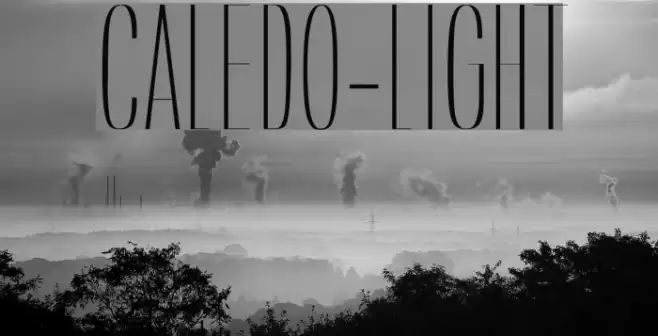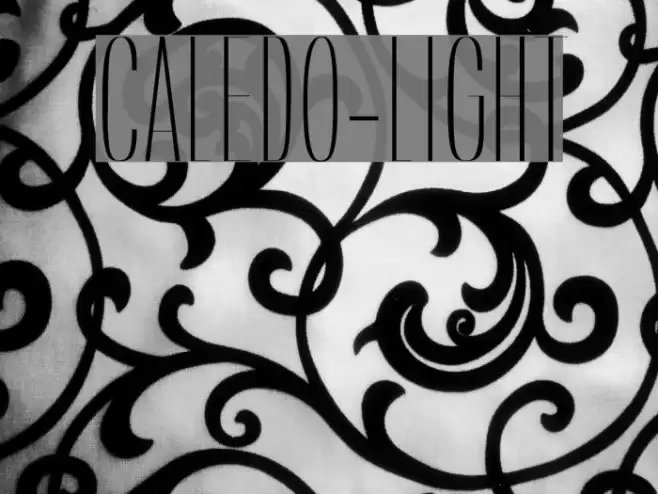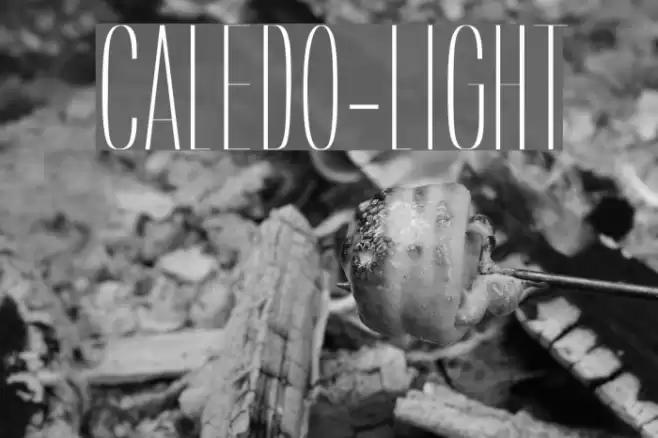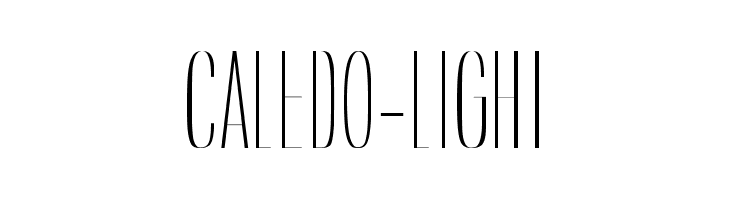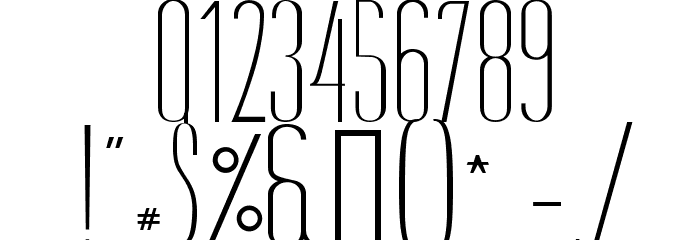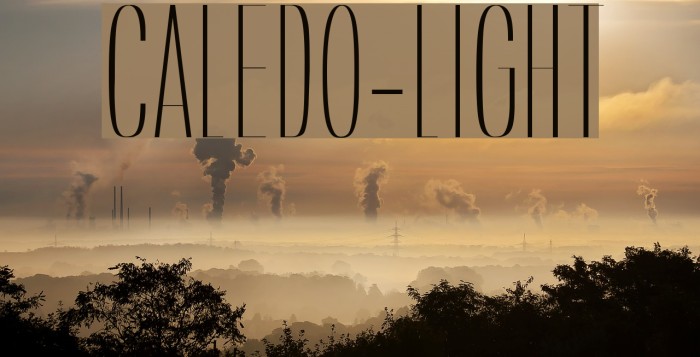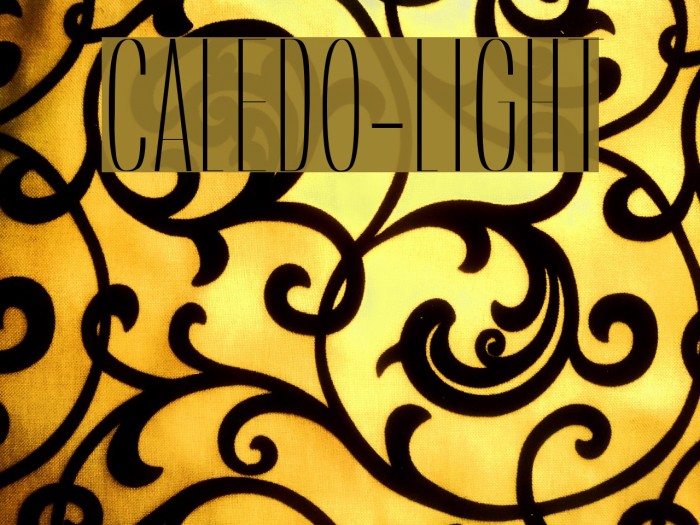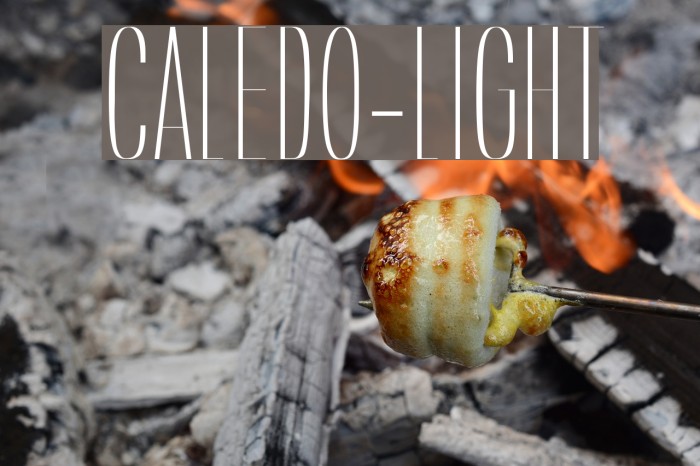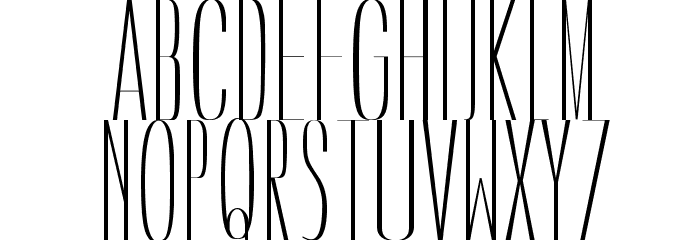
Caledo-Light Font
Caledo-Light Description
This font features an elegant and elongated design with a distinctively tall and narrow appearance. The characters are sleek and modern, with a high contrast between thick and thin strokes, giving it a sophisticated and stylish look. The uppercase and lowercase letters maintain a consistent height, contributing to its uniformity. The numerals are equally slender, complementing the overall aesthetic. Special characters are designed with the same attention to detail, ensuring a cohesive visual experience. This font is ideal for projects that require a touch of elegance and modernity.
A tall, narrow font with high contrast and a modern, elegant style from Uncategorized fonts.
- Proposed Projects: Ideal for fashion magazines, luxury branding, elegant invitations, and modern editorial layouts.